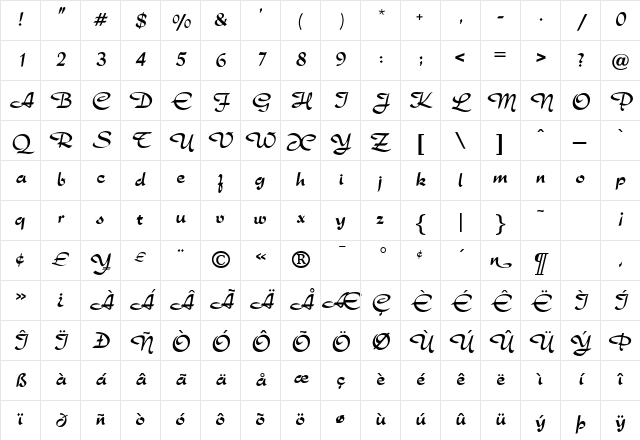
Rostrum Regular
Design Context for Rostrum
Rostrum is a composed and adaptable typeface that performs quietly and consistently across a wide range of design contexts.
Pro Tip: Use Rostrum in both headline and body roles to test its range before committing to a single application.